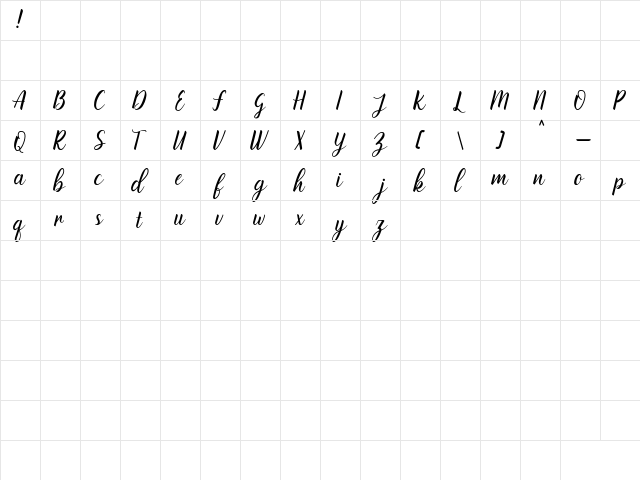
handayani Regular Font Preview
handayani Regular
Design Context for handayani Typeface
handayani brings a calligraphic fluidity to the page — its connecting strokes and expressive curves give it an unmistakably human quality.